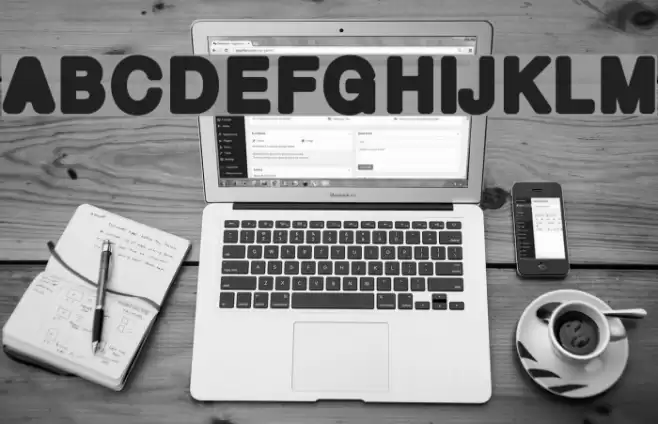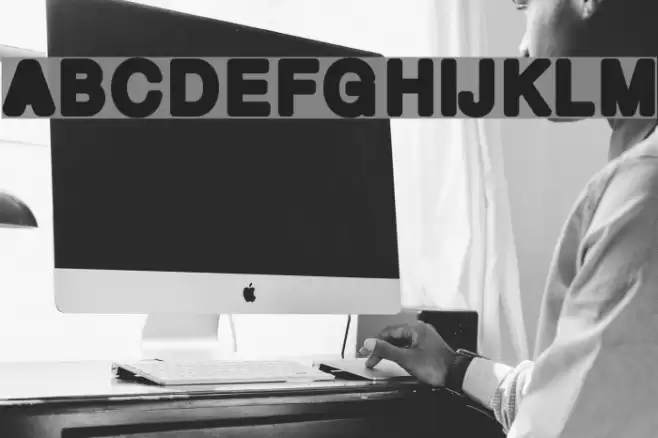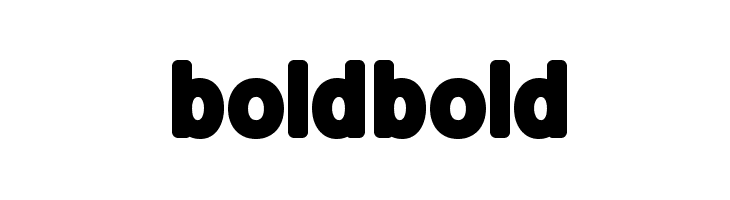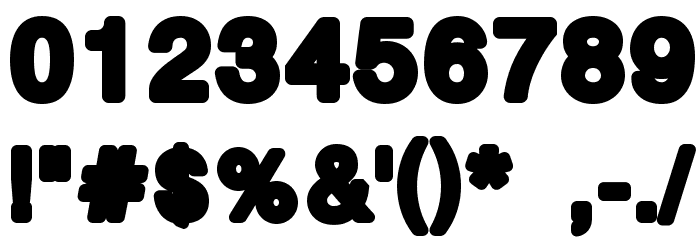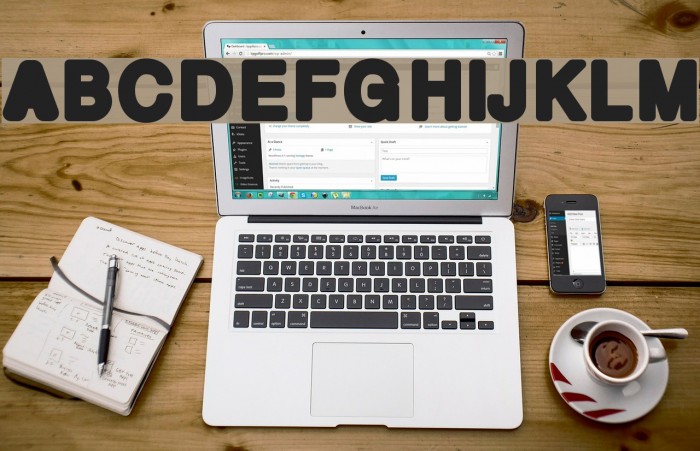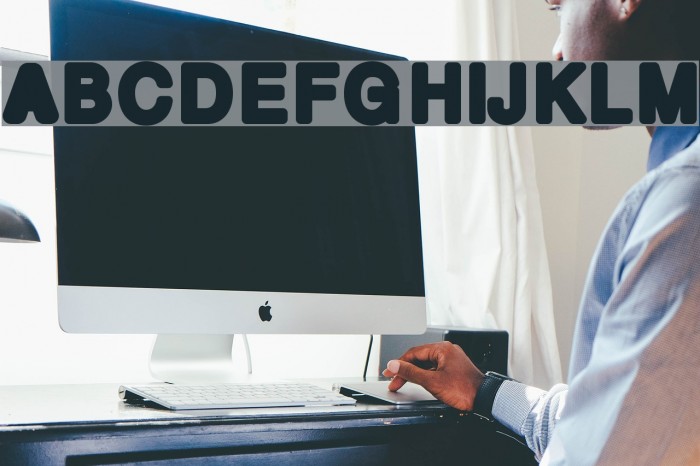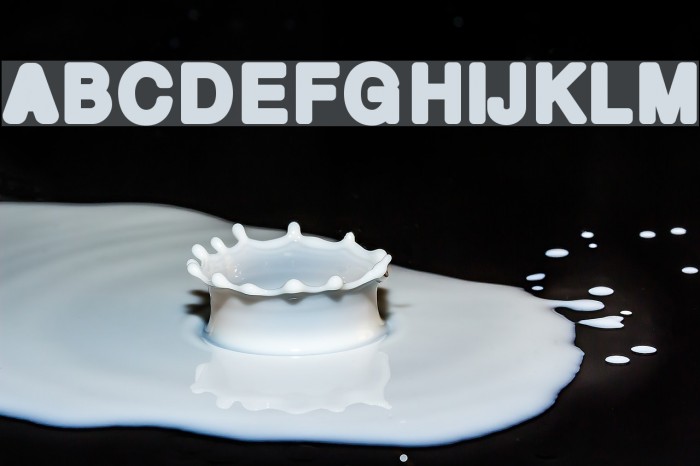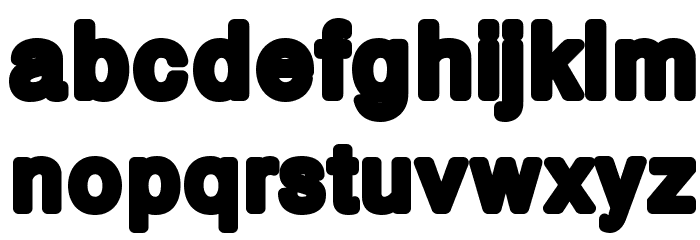
boldbold Font
boldbold Description
This font is characterized by its bold and rounded appearance, giving it a strong and impactful presence. The letters are uniformly thick, with a consistent stroke width that enhances readability. The rounded edges provide a friendly and approachable feel, making it suitable for a variety of applications. The font maintains a modern aesthetic, while its boldness ensures that it stands out in any design. The characters are evenly spaced, contributing to its clean and organized look. This font is versatile, working well in both digital and print media.
A bold, rounded font with a modern and approachable style from Sans Serif fonts.
- Proposed Projects: Ideal for branding, headlines, posters, and advertising materials where a strong visual impact is needed.